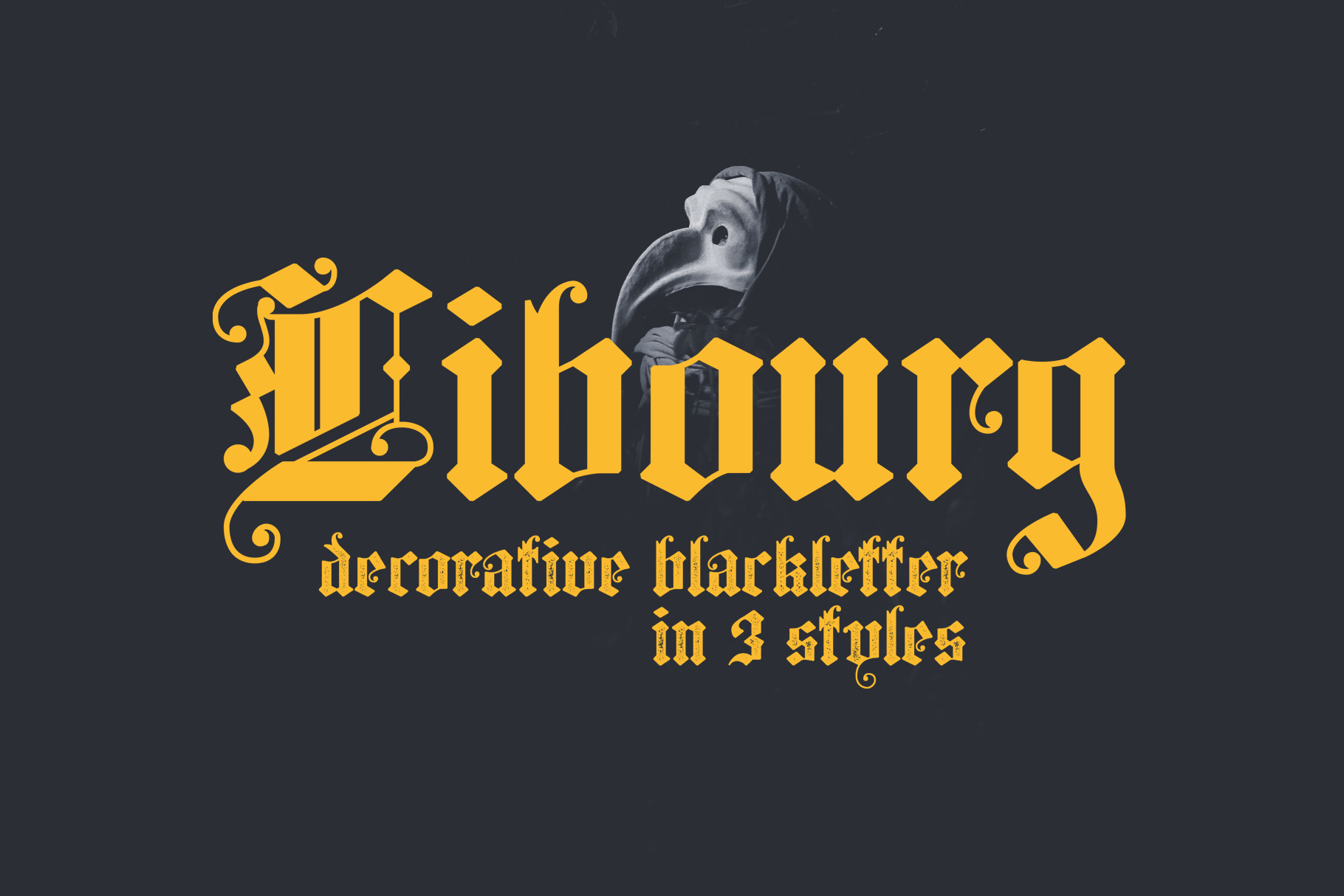
Libourg is a decorative blackletter font. Based on medieval gothic typefaces and carefully handcrafted. Libourg is great for headlines, posters and brandings but it will also be perfect for other projects.
Libourg comes in 3 styles:
- Clean
- Rough
- Stamp
Language support:
ÀÁÂÃÄÅĀÆ Ç ÈÉÊËĒ ÌÍ Î Ï Ī Ð Ñ ÒÓÔÕÖŒØ ÙÚÛÜ ỲÝŶŸ Þ ß
àáâãäåāæ ç èéêëē ìí î ï ī ð ñ òóôõöœø ùúûü ỳýŷÿ þ